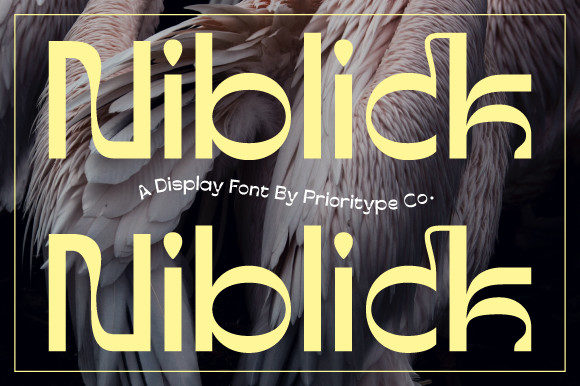
Unleash your visual enchantment with Niblick, a modern classic display font, now available exclusively on our e-commerce platform. A masterpiece crafted by Prioritype, Niblick captures the essence of timelessness with a touch of contemporary flair.
With Niblick, your artistic canvas extends infinitely. Weave captivating Instagram bios that exude elegance and sophistication. Craft branding designs that leave an indelible mark on your audience, igniting recognition and recall. Transform your posters into visual symphonies that evoke emotion and engage the senses. Design logos that symbolize your brand's essence, radiating professionalism and leaving a lasting legacy.
What sets Niblick apart is its intricate detailing, where each character dances with distinctive strokes and curves. This meticulous attention to detail ensures your designs burst with personality, capturing the eyes and hearts of your audience. The bold and confident strokes of Niblick command attention, while its classic charm exudes a sense of trustworthiness and reliability.
With Niblick as your creative companion, you will discover a font that seamlessly harmonizes strength and grace. Its versatility extends beyond Instagram bios, branding designs, posters, and logos. Unleash your imagination, let your creativity soar, and explore countless possibilities.
Embrace Niblick, a font that dances with elegance and resonates with authenticity. Elevate your designs to new heights of visual mastery and embark on a creative journey that transforms your artistic visions into extraordinary realities.